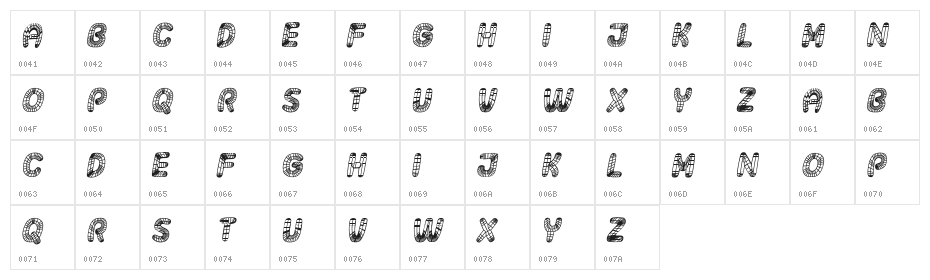
Surfaces Italic Font
Surfaces Italic Description
This font features a unique, decorative style that incorporates a woven, textured pattern within each character. The letters are bold and rounded, giving them a playful and eye-catching appearance. The intricate design within each letter adds depth and complexity, making it suitable for creative and artistic projects. The font maintains consistent thickness throughout, with a slight slant that adds a dynamic and energetic feel. Its distinct style makes it stand out, perfect for projects that require a strong visual impact.
| Proposed Projects | Ideal for posters, album covers, branding, and any project needing a bold, artistic touch. |